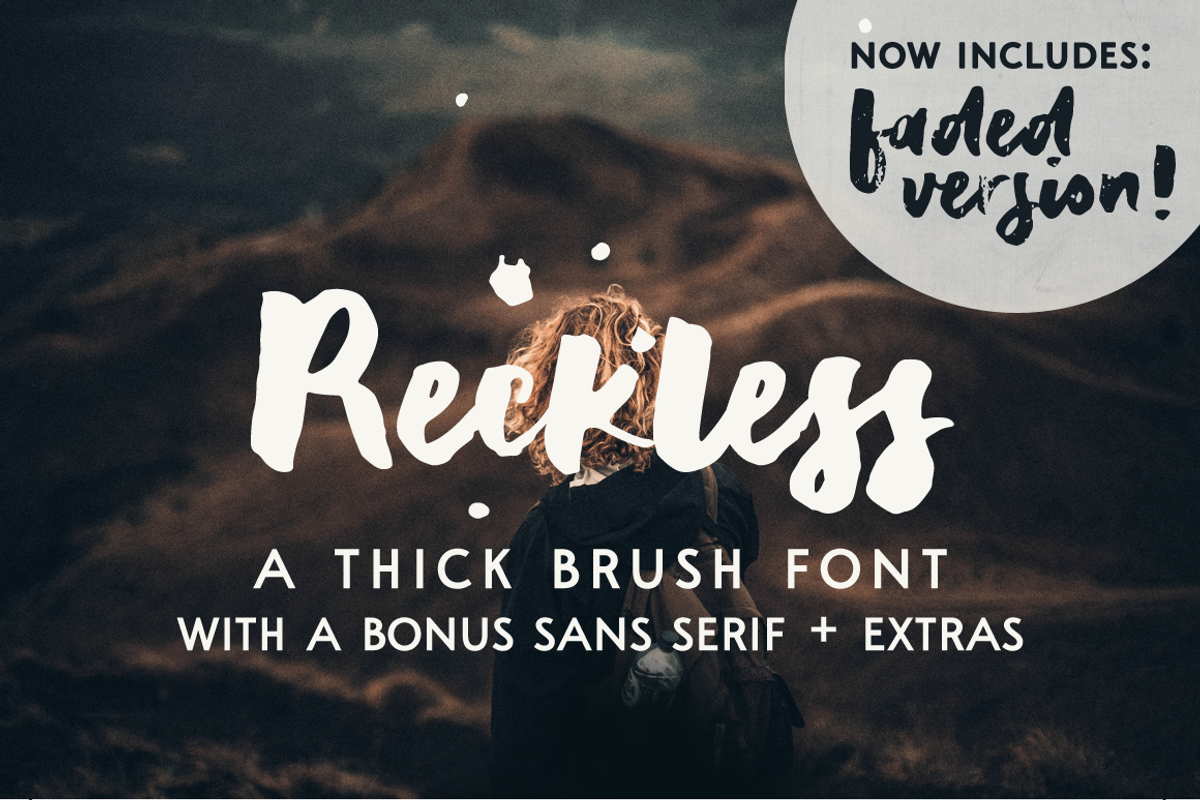
Reckless brush and sans font duo Free Download
Reckless Brush and Sans Font Duo Free Download
Edgy, expressive, and full of attitude, Reckless Brush and Sans Font Duo Free Download is a powerful type combo that pairs a bold brush script with a clean, modern sans. Perfect for logos, apparel, posters, social media graphics, and bold branding, this duo is designed to make a strong visual impact while offering versatility in your layout.
The brush font delivers raw, energetic strokes that feel hand-painted and alive, while the sans-serif balances it out with clean, grounded letterforms. Together, they create a dynamic contrast that’s ideal for designers looking to build bold, creative, and memorable compositions.